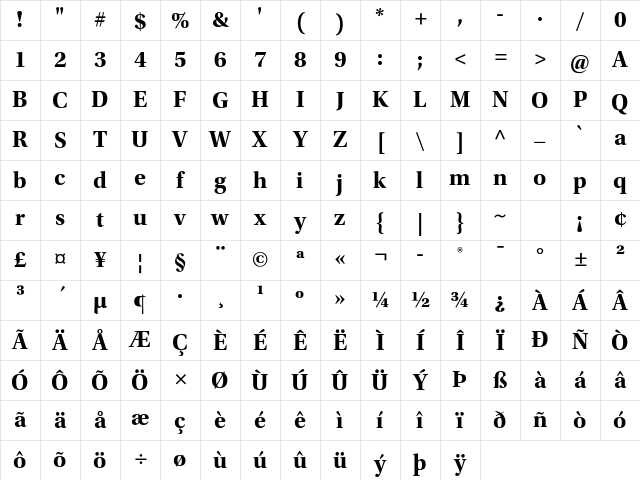
Utopia Std Bold Subhead
Style: Bold Subhead
Complete Utopia Std Bold Subhead glyph index. Displaying only characters natively supported by Utopia Std Bold Subhead font.
Design Context for Utopia Std
Utopia Std is a composed and adaptable typeface that performs quietly and consistently across a wide range of design contexts. Its bold stroke weight gives it real presence on the page.